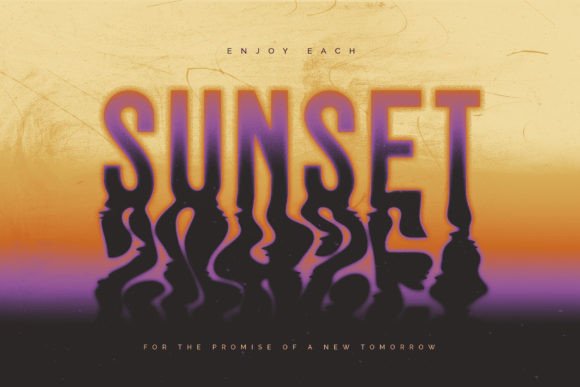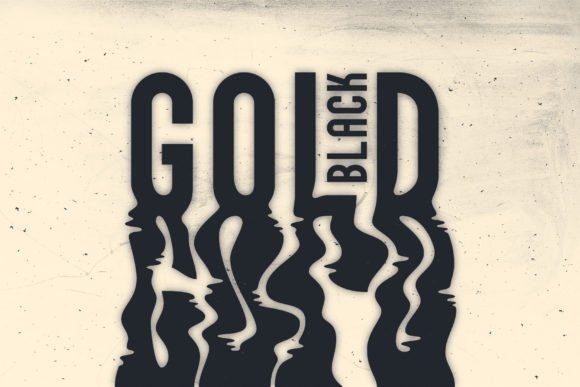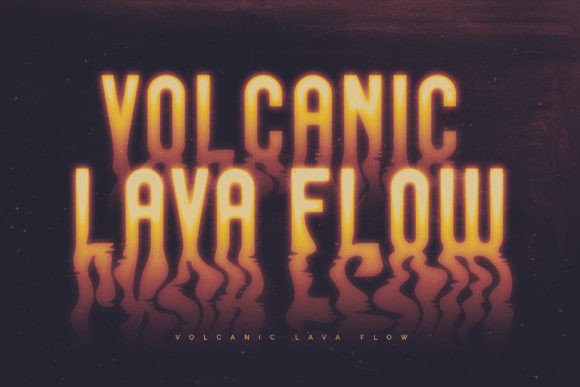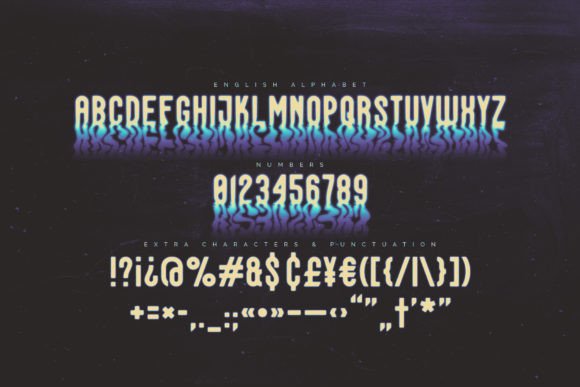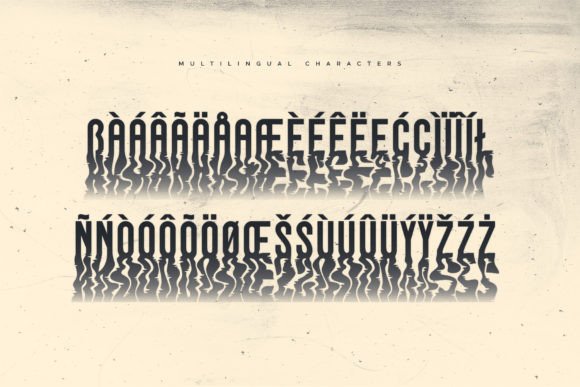
Bryzhi Font: A Revolutionary Decorative Font for Creative Minds
Are you tired of using the same old fonts in your designs? Look no further! We’re excited to introduce Bryzhi, a beautifully crafted, decorative font that’s sure to take your creative projects to the next level. In this article, we’ll dive into the features and benefits of Bryzhi, and explore how it can elevate your designs.
What is Bryzhi Font?
Bryzhi is an originally designed, decorative font that boasts a unique, flowing liquid reflection of characters. This stunning font is perfect for designers and crafters who want to add a touch of elegance and sophistication to their work. With Bryzhi, you can create mesmerizing text effects that will leave your audience captivated.
Key Features of Bryzhi Font
- Automatic Variations: Most letters in Bryzhi have five variations that switch automatically to create a seamless effect. This feature allows you to achieve a smooth, liquid-like reflection of characters.
- Context Alternates OpenType Feature: To achieve the desired effect, the Context Alternates OpenType feature needs to be activated. This feature ensures that the font switches between variations seamlessly, creating a natural flow.
- Stylistic Alternates Feature: For simple letters without reflection effects, you can use the Stylistic Alternates feature. This feature provides you with an alternative set of letters that can be used to create a more subtle look.
Benefits of Using Bryzhi Font
Bryzhi offers a range of benefits for designers and crafters, including:
- Unique and Eye-Catching Designs: With Bryzhi, you can create stunning text effects that will set your designs apart from the crowd.
- Time-Saving: The automatic variations feature saves you time and effort, as you don’t need to manually switch between different letterforms.
- Flexibility: Bryzhi is versatile and can be used for a wide range of projects, from branding and advertising to packaging and digital media.
Tips and Tricks for Getting the Most Out of Bryzhi
To take your designs to the next level with Bryzhi, here are some tips and tricks to keep in mind:
- Experiment with Different Sizes and Colors: Bryzhi looks great in various sizes and colors, so don’t be afraid to experiment and find the perfect combination for your design.
- Combine with Other Fonts: Bryzhi can be paired with other fonts to create a unique and visually appealing design.
- Pay Attention to Kerning: As with any font, pay attention to kerning to ensure that your text looks professional and polished.
In conclusion, Bryzhi is a game-changing decorative font that’s perfect for designers and crafters who want to add a touch of elegance and sophistication to their work. With its unique, flowing liquid reflection of characters and automatic variations feature, Bryzhi is sure to take your creative projects to the next level. So why wait? Download Bryzhi today and experience the power of this revolutionary font for yourself!